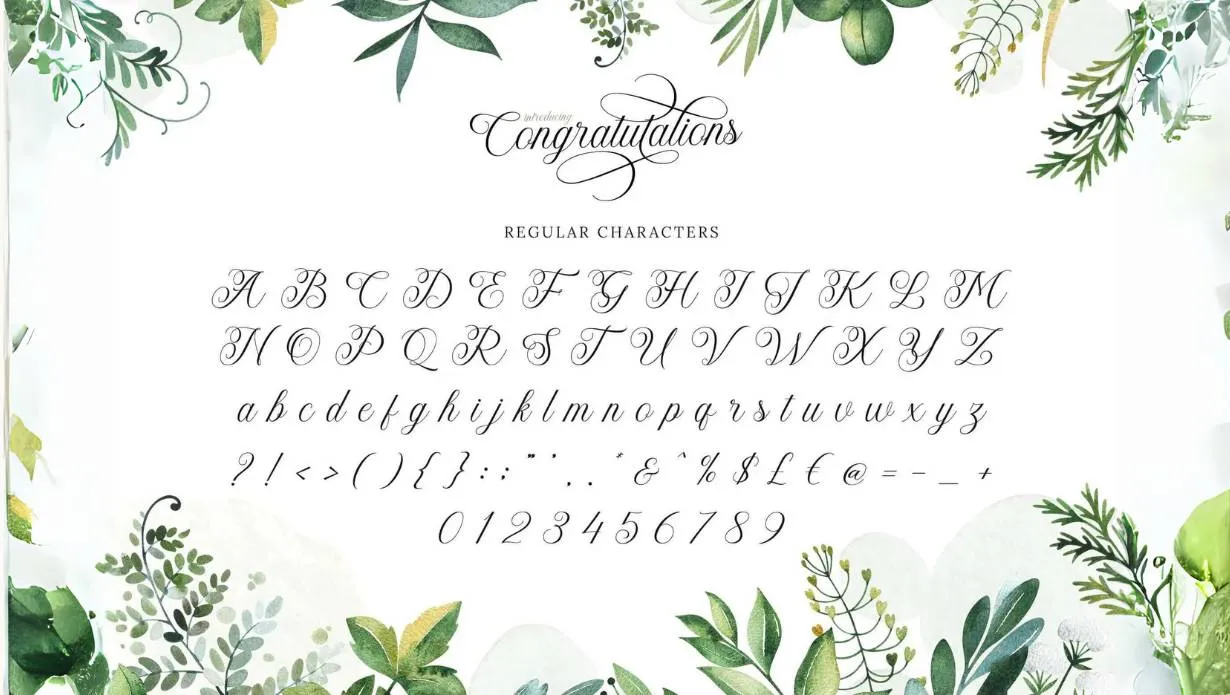
The Congratulations Font is a virtual celebration in typography form, tailor-made for joyful messages or special occasions. Its cheerful characters radiate happiness, making it a delightful addition to greeting cards or celebratory banners.